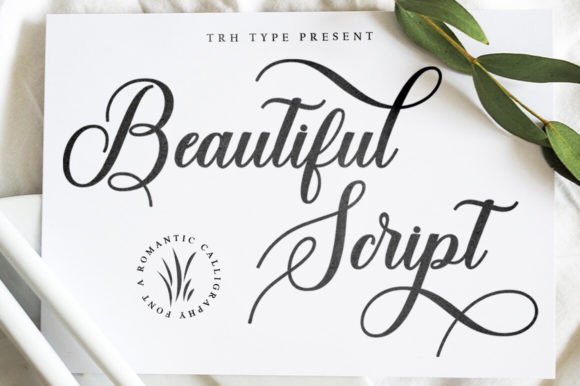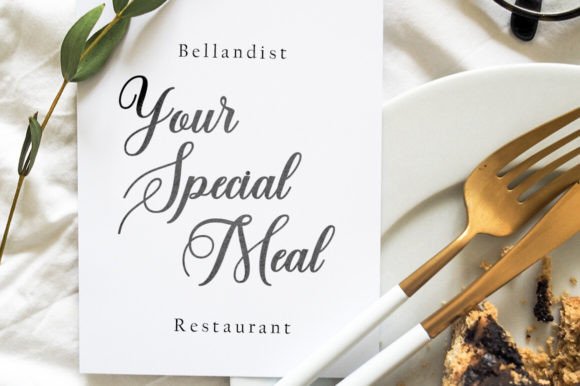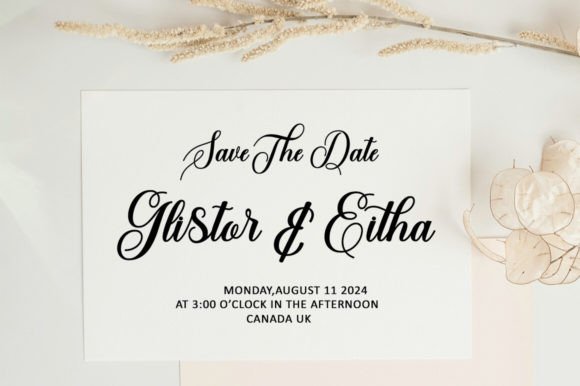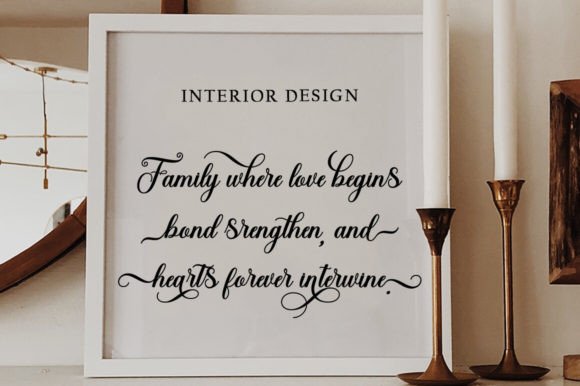
Beautiful Script Font
About the Beautiful Script Font
Meet Beautiful Script Font, a stunning font that brings a touch of elegance and professionalism to any design. Beautiful Script is a handwritten font with a modern calligraphy feel.
It is perfect for modern projects, headings, blogs, logos, brandings, invitations, and more!
Beautiful Script Font Usage Examples
Beautiful Script Font Example